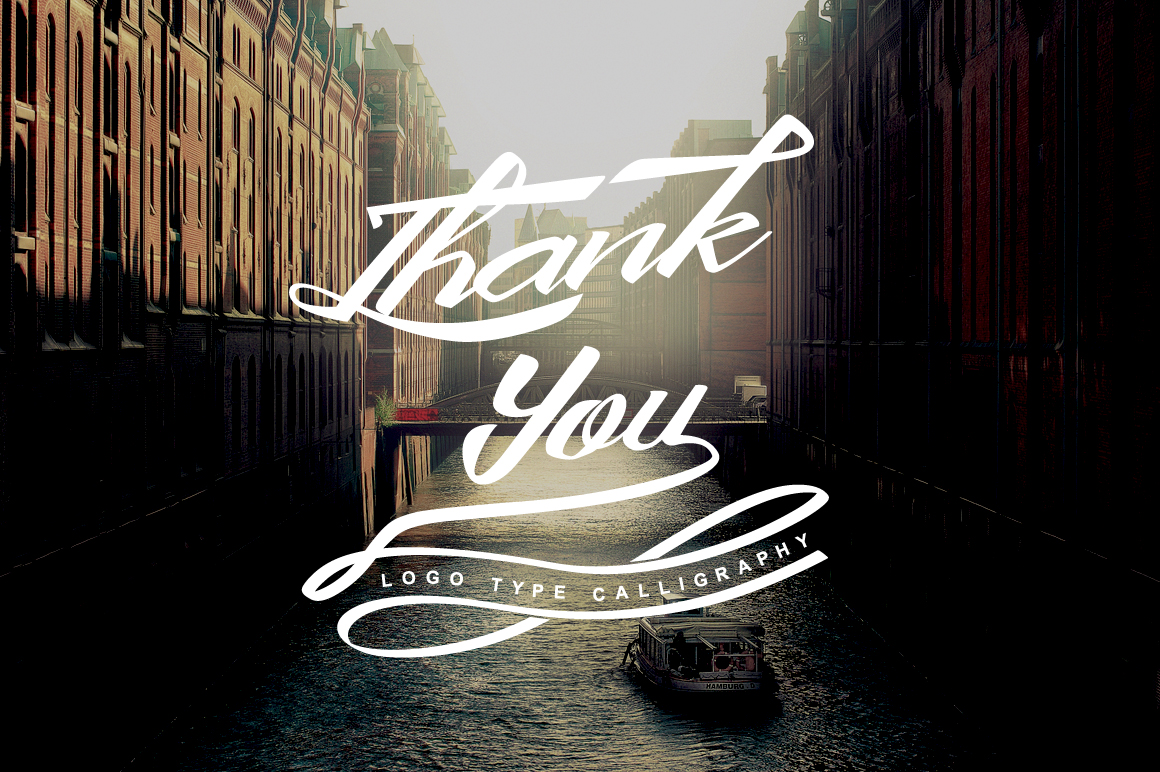
Introduction to King City Font
Have you ever stumbled upon an old, vintage advertisement or a beautifully crafted sign from a bygone era, and felt an instant spark of inspiration? For designers, these moments can be a goldmine of creative ideas, and the King City Font is no exception. This stunning script font is a masterclass in elegance and sophistication, perfect for adding a touch of vintage charm to your designs.
With its logotype feel and abundance of swashes and decorative elements, the King City Font is a valuable asset for any designer looking to add a touch of personality to their work. Whether you’re working on a creative project that requires a high-quality design resource or simply want to give your designs a unique, branded look, this font is sure to impress. And the best part? It’s available for free download, making it an accessible design resource for designers of all levels.
Key Features of King City Font
- Unique, hand-drawn design with a transparent background, perfect for adding a personal touch to your work.
- Designed with a high level of detail and precision, ensuring a crisp and clear display at resolutions up to 300 DPI.
- Comes in a single font size, making it easy to use in various design projects without worrying about scaling issues.
- Perfect for use in digital and print media, including posters, flyers, business cards, and more.
Honest Review: King City Font
- ✨ The font has a high quality design that’s both modern and elegant.
- ✨ It’s incredibly versatile, suitable for a wide range of creative projects.
- ✨ The font’s transparent background makes it easy to layer and combine with other design elements.
However, I did encounter a few limitations with the King City Font.
- Limitations:
- ⚠️ The font may not be suitable for projects that require a bold or distressed look.
- ⚠️ Some users may find the font’s design too minimalist, which may limit its appeal.
Overall, I’m really impressed with the King City Font. Its high quality design, versatility, and transparent background make it a valuable design resource for any creative project. I highly recommend it to fellow designers looking for a reliable font solution.
King City Font is commonly used in creative projects such as branding, packaging design, and digital art. Its unique style and high quality make it a popular choice among designers.
Tips for Getting the Most Out of King City Font
To get the most out of King City Font, use it with a transparent background to create a modern and sleek design. You can also experiment with different font sizes and colors to create a unique look.
Alternatives to King City Font
Great Vibes Font is a high-quality, elegant script font that is perfect for creative projects requiring a touch of sophistication. It’s ideal for use on a transparent background to create a beautiful, eye-catching design. Great Vibes Font is available for free download and can be used as a design resource for various purposes.
Great Vibes Font is similar to King City Font in its elegant and sophisticated style, but it has a more refined and subtle feel. It’s a great alternative for designers looking for a high-quality script font without the need for a bold, graffiti-like aesthetic.
Alex Brush Font is a beautiful, handwritten font that is perfect for creative projects requiring a personal touch. It’s ideal for use on a transparent background to create a beautiful, eye-catching design. Alex Brush Font is available for free download and can be used as a design resource for various purposes.
Alex Brush Font is similar to King City Font in its handwritten style, but it has a more elegant and refined feel. It’s a great alternative for designers looking for a high-quality, handwritten font without the need for a bold, graffiti-like aesthetic.
No, the King City Font does not have a transparent background. However, you can easily achieve a transparent background effect by using a design tool or software that supports layering and transparency. This will allow you to create a design element with a transparent background using the King City Font.